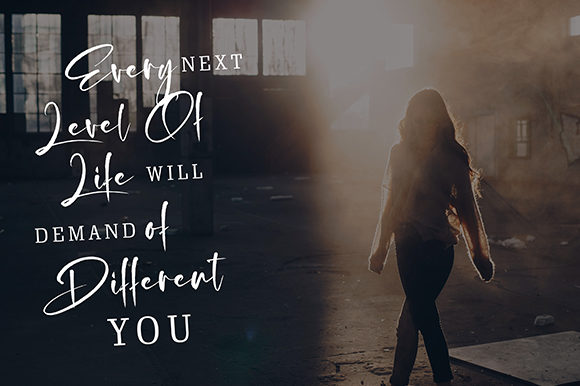
Introduction to Rudolf Authentic Font Font
Fonts play a crucial role in design, and the Rudolf Authentic Font font is a typeface that brings both character and versatility to any project. Whether you’re working on a branding project, a website, or a print design, the Rudolf Authentic Font font offers a unique style that can elevate your work.
| 👤 Author | Pineungtype & Missinklab |
Rudolf Authentic is a unique script font with modern characters.
It works well for a wide variety of projects .
Key Features of Rudolf Authentic Font Font
Why Choose Rudolf Authentic Font Font?
The Rudolf Authentic Font font is more than just a typeface – it’s a design tool that helps you communicate your message with style and clarity. Its unique character set and versatile design make it suitable for a wide range of applications, from elegant invitations to bold headlines.
With its carefully crafted letterforms and balanced proportions, the Rudolf Authentic Font font ensures readability and visual appeal across all mediums.
What makes Rudolf Authentic Font font special?
The Rudolf Authentic Font font stands out with its unique design, exceptional readability, and versatility across various design applications.